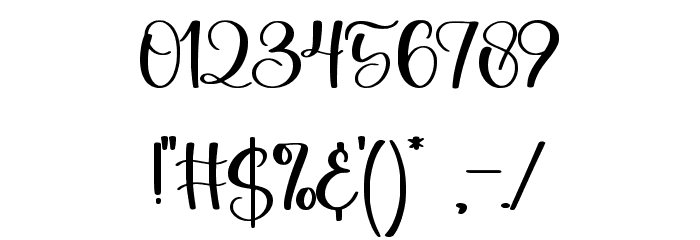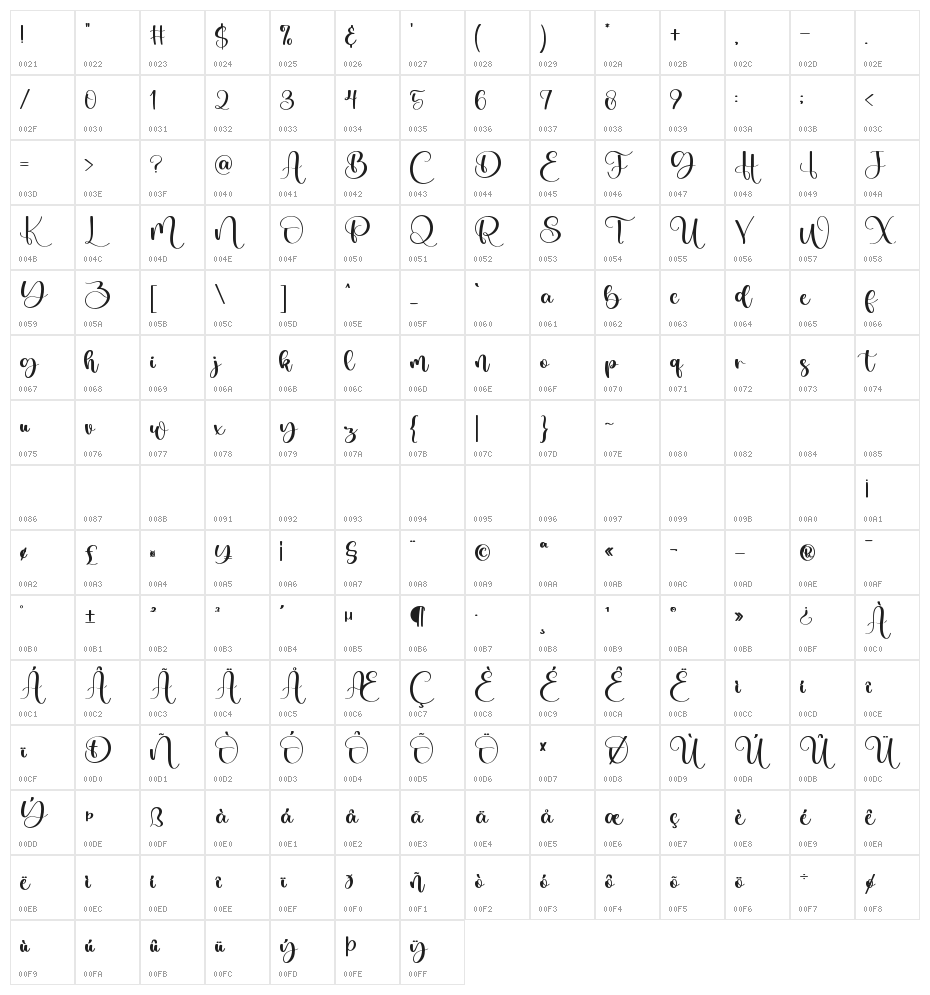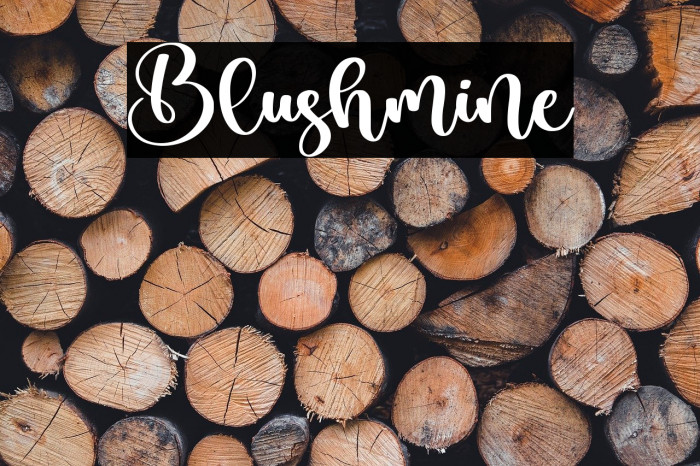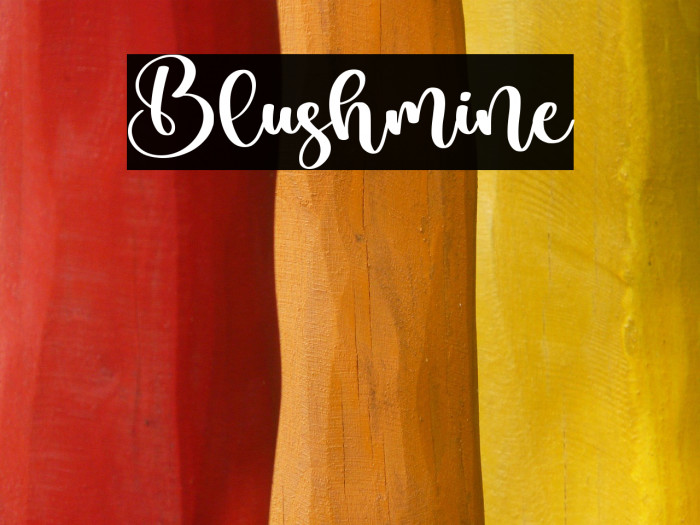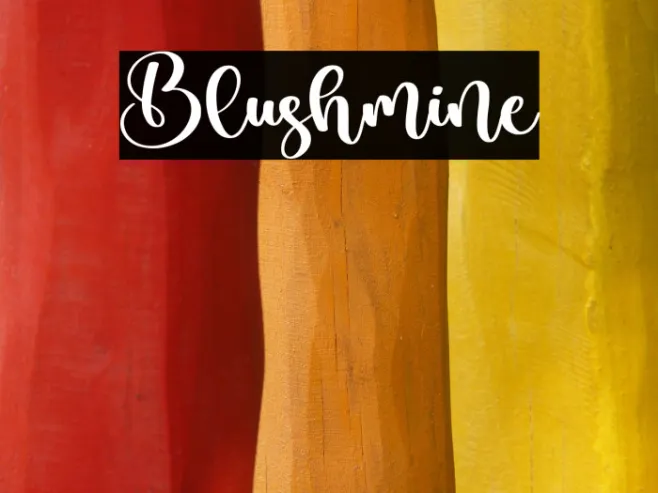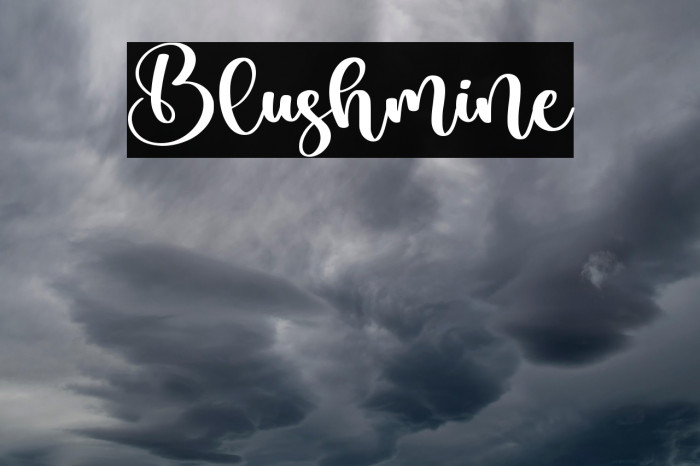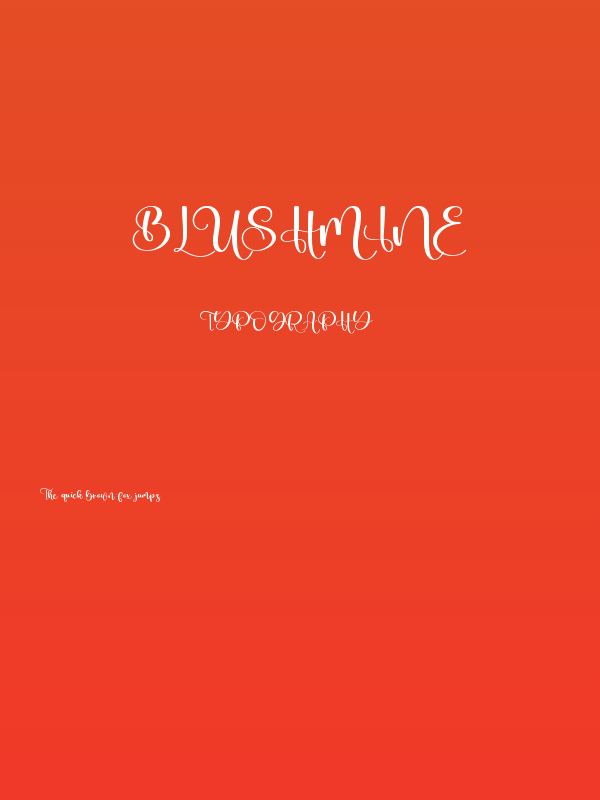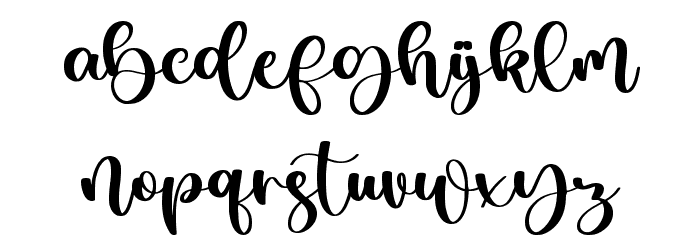
Blushmine Font
Blushmine Description
This font features an elegant and flowing script style that combines both sophistication and playfulness. The uppercase letters are characterized by their intricate loops and swirls, adding a decorative flair that is both eye-catching and stylish. The lowercase letters maintain a consistent flow, with smooth curves and a slightly bouncy baseline, enhancing the font's whimsical nature. The numerals are designed to match the script style, with similar curves and a cohesive look. Special characters are thoughtfully integrated, maintaining the overall aesthetic. This font is perfect for projects that require a touch of elegance and creativity, such as invitations, branding, and decorative prints.